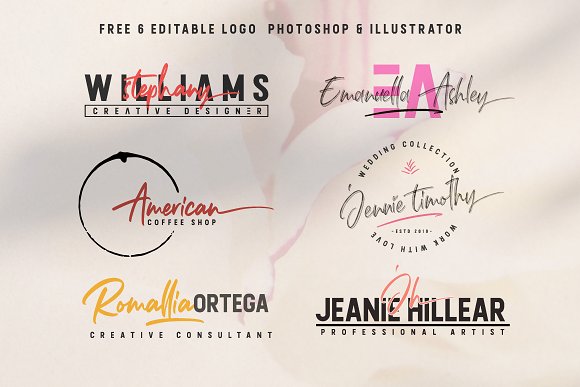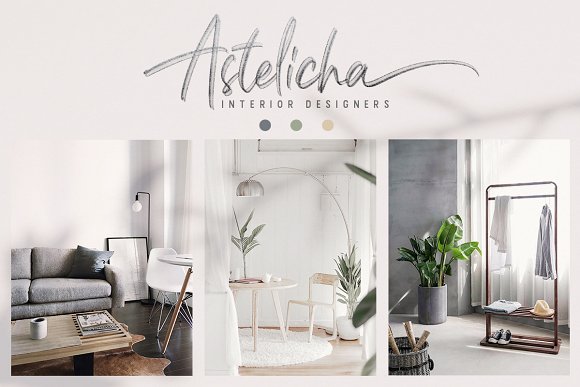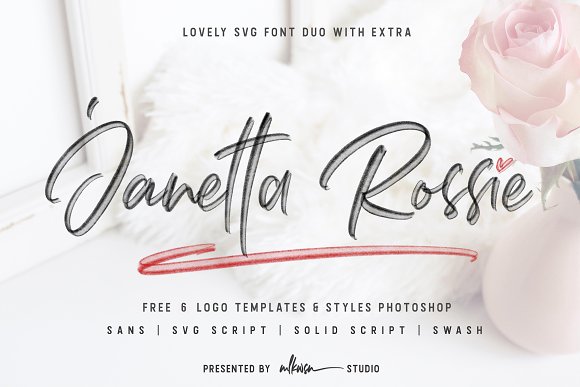
Janetta Rossie | SVG +font duo extra
Hello Introducing, Janetta Rossie , A Lovely Font duo, SVG opentype with EXTRAS! Janetta Rossie is a Perfect Duo Pairing that contain lowercase, uppercase, symbol, and also support multi language and more ligatures in this font. Janetta Rossie also comes with Swash and doodle font that you can use to make a logo for branding, beautiful fashion design, suitable for wedding invitation, or handwritten quote. Also already PUA Encoded. Plus 6 editable logo for you!